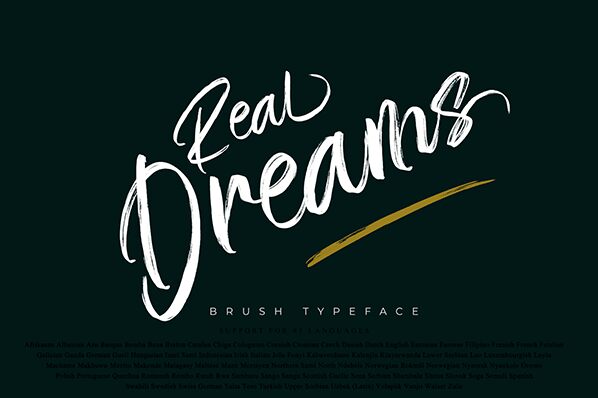
Real Dreams, a stunning brush font by Gie Studio, is the perfect typeface for projects that require a touch of elegance and sophistication. The semi-light weight gives it a delicate feel while the brush style adds an artistic edge. Whether you're designing wedding invitations or creating social media graphics, Real Dreams will elevate your project to the next level. Its unique letter shapes and flowing strokes make it ideal for branding, packaging, and advertising materials as well. With Real Dreams, you can add a touch of creativity to any project and leave a lasting impression on your audience.